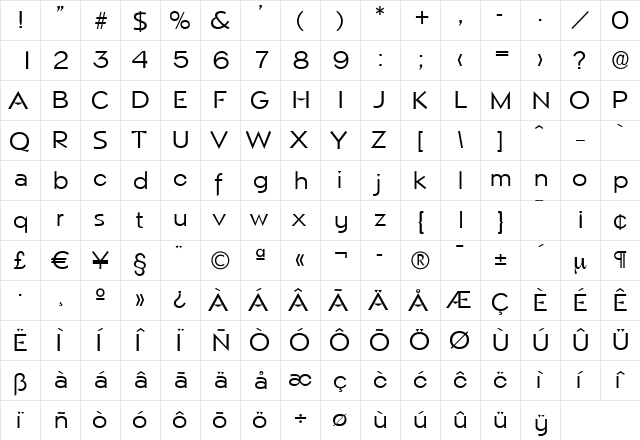
MarioBecker Regular
Design Context for MarioBecker Typeface
MarioBecker offers clean, dependable letterforms without strong stylistic allegiance, making it a practical choice for designers who need flexibility.
Pro Tip: Use MarioBecker in both headline and body roles to test its range before committing to a single application.